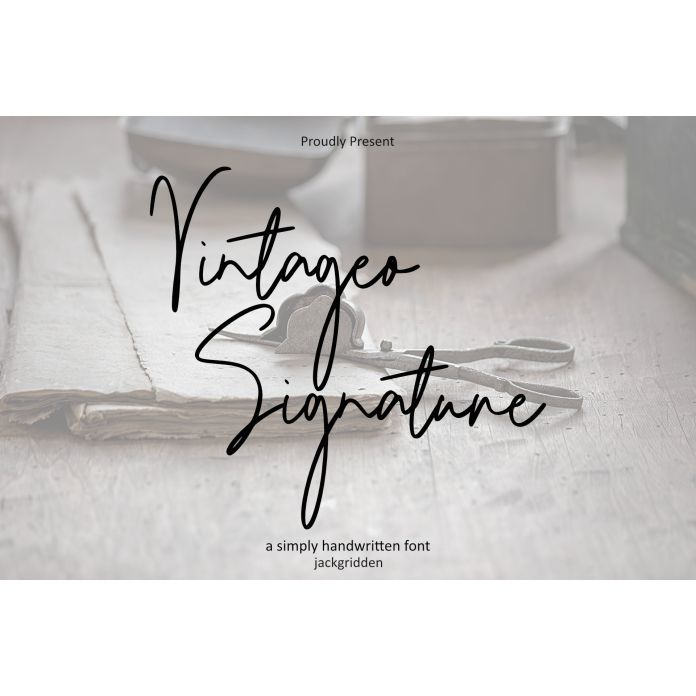
“Vintageo Signature” is a harmonious blend of sophistication and creativity, designed to evoke a sense of elegance and joyful bliss. With its flowing curves and graceful strokes, this font is perfect for projects that require a touch of refinement, whether for invitations, branding, or personal projects. Its balanced structure and artistic flair make it an ideal choice for those seeking a font that conveys both serenity and vibrance, offering a timeless appeal for any occasion.”